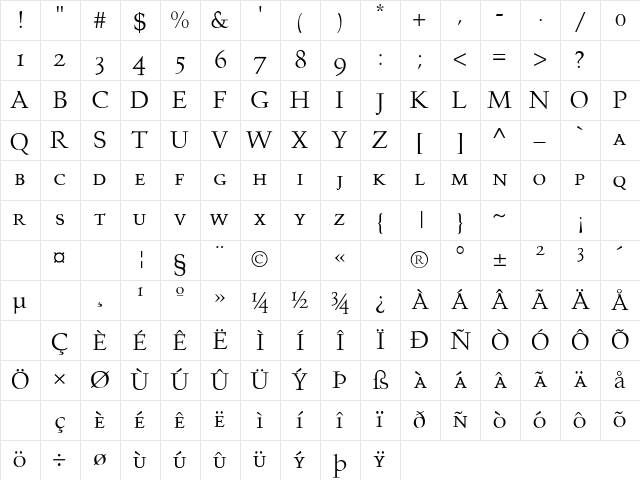
Prospero Smallcaps
Style: Smallcaps
Design Context for Prospero
Prospero is a composed and adaptable typeface that performs quietly and consistently across a wide range of design contexts.